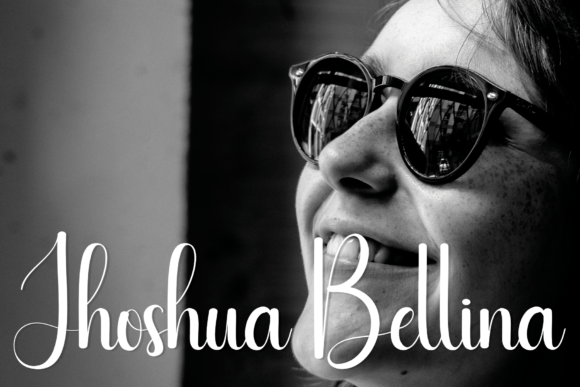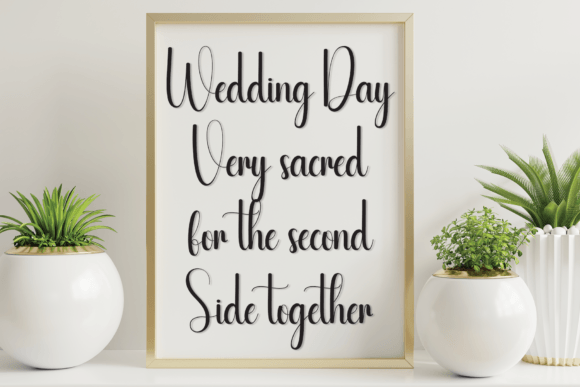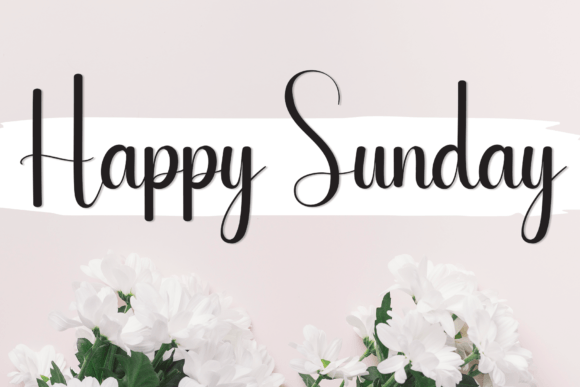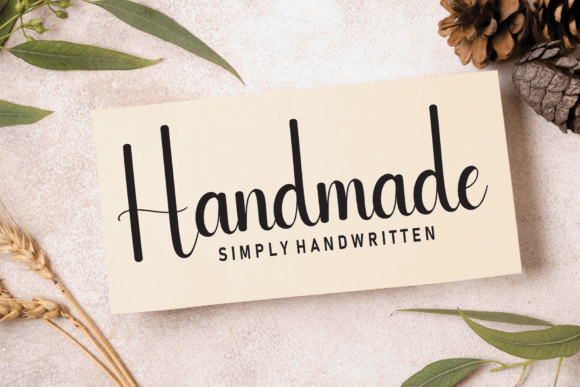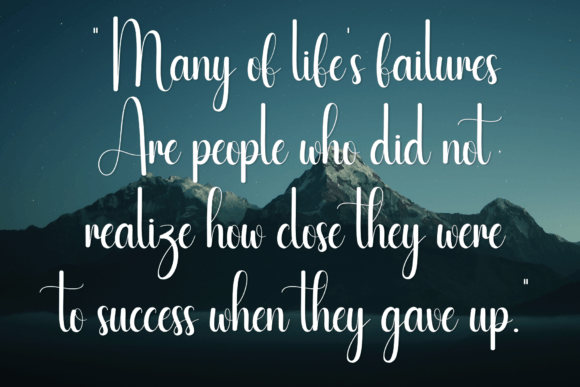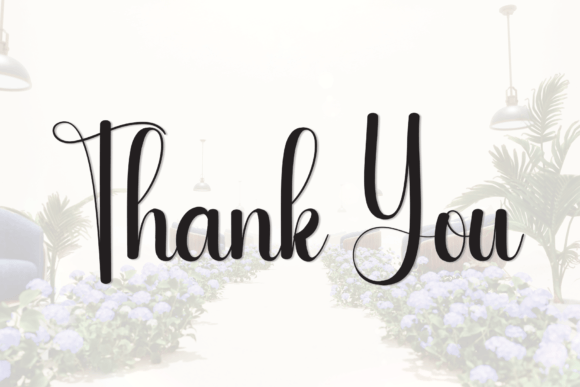
Introducing Flowerbed Font: Add a Touch of Romance to Your Designs
Are you looking for a font that can add a romantic and whimsical touch to your designs? Look no further than Flowerbed Font, an enchanting handwritten script font that is sure to captivate your audience. With its versatile and elegant design, Flowerbed Font is perfect for a wide range of applications, from greeting cards to headlines, and is guaranteed to make your next project stand out.
What is Flowerbed Font?
Flowerbed Font is a beautiful handwritten script font that features elegant and flowing lines, creating a romantic and sophisticated look. The font is designed to be versatile, making it suitable for a variety of design projects, including wedding invitations, greeting cards, posters, and more. Its unique and charming design is sure to add a personal touch to your designs and make them more memorable.
Key Features of Flowerbed Font
- Handwritten Script Font: Flowerbed Font is a handwritten script font that features elegant and flowing lines, creating a romantic and sophisticated look.
- Versatile Design: The font is designed to be versatile, making it suitable for a wide range of design projects, from greeting cards to headlines.
- Romantic Feel: Flowerbed Font is guaranteed to add a romantic and whimsical touch to your designs, making it perfect for wedding invitations, anniversary cards, and more.
- Elegant and Sophisticated: The font features elegant and sophisticated lines, creating a beautiful and refined look.
Uses of Flowerbed Font
Flowerbed Font is a versatile font that can be used for a wide range of design projects, including:
- Greeting Cards: Add a personal touch to your greeting cards with Flowerbed Font, perfect for birthdays, weddings, and anniversaries.
- Wedding Invitations: Make your wedding invitations stand out with Flowerbed Font, adding a romantic and elegant touch to your special day.
- Headlines: Use Flowerbed Font to create beautiful and eye-catching headlines for your blog posts, articles, and social media posts.
- Posters and Flyers: Add a touch of elegance to your posters and flyers with Flowerbed Font, perfect for advertising events, products, and services.
Why Choose Flowerbed Font?
There are many reasons why you should choose Flowerbed Font for your next design project:
- Unique and Charming Design: Flowerbed Font features a unique and charming design that is sure to make your designs stand out.
- Romantic and Whimsical: The font adds a romantic and whimsical touch to your designs, making it perfect for wedding invitations, greeting cards, and more.
- Elegant and Sophisticated: Flowerbed Font features elegant and sophisticated lines, creating a beautiful and refined look.
- Easy to Read: The font is easy to read, making it perfect for body text and headlines.
Tips for Using Flowerbed Font
Here are some tips for using Flowerbed Font in your design projects:
- Use it for Headlines: Flowerbed Font is perfect for headlines, adding a touch of elegance and sophistication to your titles.
- Pair it with Other Fonts: Pair Flowerbed Font with other fonts to create a unique and interesting look.
- Use it for Body Text: Flowerbed Font is easy to read, making it perfect for body text.
Flowerbed Font is a beautiful and versatile handwritten script font that is sure to add a romantic and whimsical touch to your designs. With its elegant and sophisticated lines, Flowerbed Font is perfect for a wide range of design projects, from greeting cards to headlines. Whether you’re a designer, crafter, or DIY enthusiast, Flowerbed Font is a great addition to your font collection.